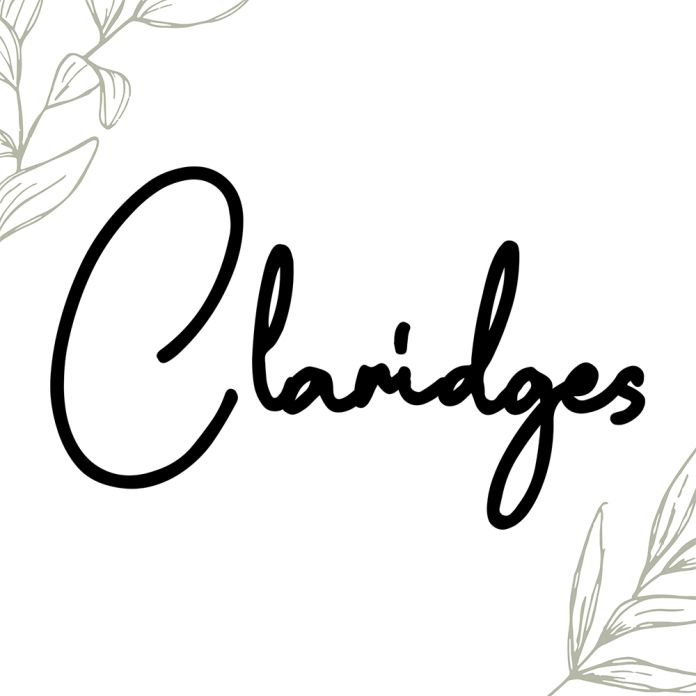
Claridges is a stylish and modern script font. It looks stunning on wedding invitations, thank you cards, quotes, greeting cards, logos, business cards, and every other design which needs a handwritten touch.